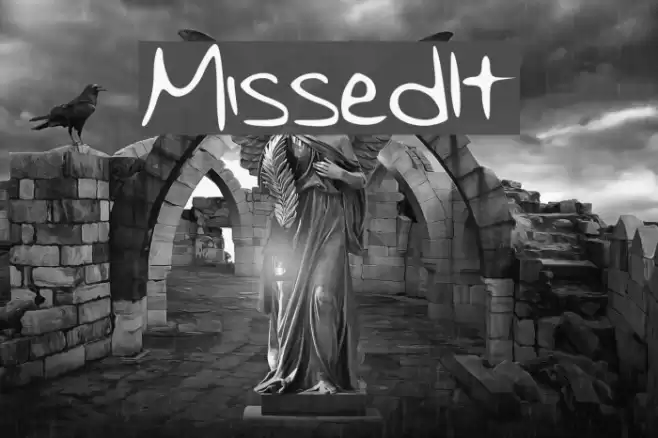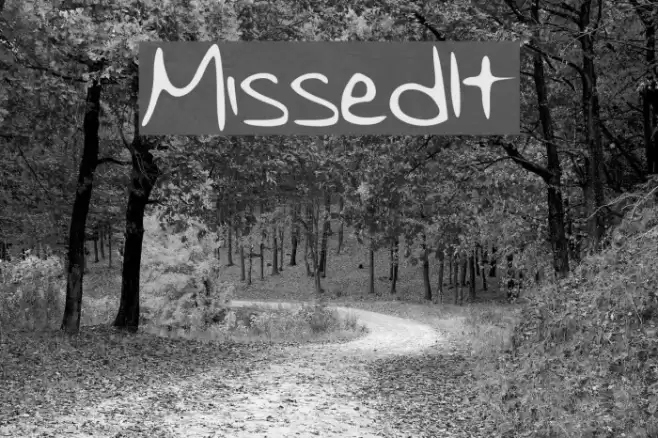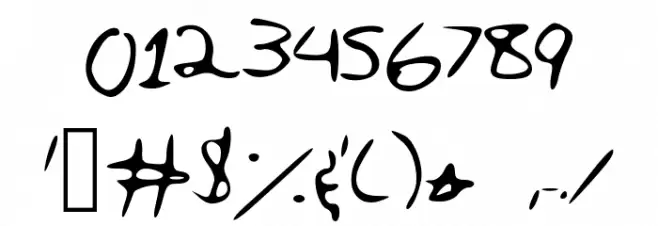
MissedIt Font
MissedIt Description
This font features a playful and casual handwritten style, characterized by its irregular and organic letterforms. The strokes are uneven, giving it a dynamic and lively appearance. The uppercase and lowercase letters maintain a consistent flow, with some letters exhibiting unique quirks, such as the elongated tails on certain characters. The numbers and special characters follow the same whimsical design, adding to the font's overall charm. This style is perfect for projects that require a personal touch or a sense of informality.
A playful, casual handwritten font with irregular, organic strokes from Handwritten fonts.
- Proposed Projects: Ideal for greeting cards, children's books, casual invitations, and personal branding.
- Overall Style: Casual, Playful
- Use Case: Headlines, Informal text, Creative projects